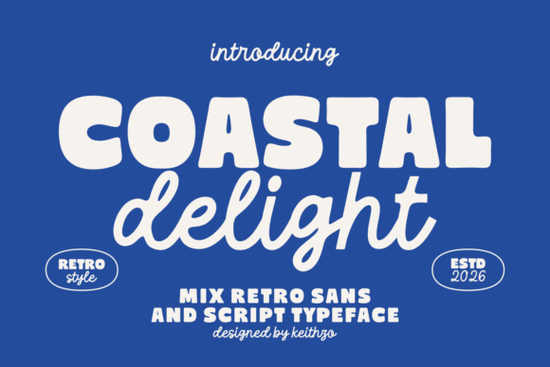
If you're looking for a font that brings a wave of nostalgic energy to your projects, Coastal Delight Font is a fantastic choice. This vibrant typeface duo combines bold, chunky letterforms with a fluid, free-spirited script, making it perfect for creators who love a retro aesthetic with a modern twist.
Why Choose Coastal Delight Font?
Coastal Delight is designed to be versatile and visually appealing. The heavy, eye-catching sans-serif paired with a graceful, hand-lettered script creates a dynamic contrast. This combination allows you to build visual hierarchy effortlessly while maintaining a cohesive, sun-drenched vibe. Whether you're working on branding, headlines, or digital designs, Coastal Delight adds character and a touch of human warmth.
Perfect for a Variety of Projects
One of the standout features of Coastal Delight is its versatility. It’s not just a font; it’s a mood. Here are some ways you can use it:
- Headlines and Titles: Make your headlines and titles stand out with the bold, chunky sans-serif.
- Branding and Logos: Add depth and personality to your branding and logos with the hand-lettered script.
- Digital Designs: Incorporate it into your digital designs for a touch of nostalgia and modern appeal.
- Print-on-Demand Products: Use it for t-shirts, mugs, and other print-on-demand products to create a unique, carefree look.
How Does Coastal Delight Compare to Other Fonts?
While there are many fonts available, Coastal Delight stands out with its unique blend of retro and modern elements. Here’s how it compares to some other popular fonts:
- Bloomsy Font: If you prefer a more floral and delicate style, Bloomsy Font might be a good alternative. However, Coastal Delight offers a bolder, more energetic feel.
- Playful Children Font: For a more whimsical and childlike design, Playful Children Font is a great option. Coastal Delight, on the other hand, provides a more mature, yet still playful, aesthetic.
- Groovy Melt Font: Groovy Melt Font has a similar retro vibe but with a more psychedelic and flowing style. Coastal Delight maintains a cleaner, more structured appearance.
- Harlow Chunky Font: Harlow Chunky Font is another bold and chunky option, but it lacks the fluid, script component that Coastal Delight offers.
- Brick Stacked Font: For a more industrial and rugged look, Brick Stacked Font is a good choice. Coastal Delight, however, provides a more approachable and sunny vibe.
Where Can I Use Coastal Delight Font?
Coastal Delight is incredibly versatile and can be used in a wide range of creative projects. Here are some specific examples:
- Website Design: Use it for headings, subheadings, and call-to-action buttons to add a touch of personality.
- Social Media Graphics: Create eye-catching graphics for Instagram, Facebook, and other social media platforms.
- Invitations and Greeting Cards: Add a personal and inviting touch to your invitations and greeting cards.
- Marketing Materials: Use it for brochures, flyers, and other marketing materials to make your message stand out.
Is Coastal Delight Easy to Use?
You can find Coastal Delight Font on Creative Fabrica. The platform offers a wide selection of high-quality fonts, and Coastal Delight is one of their top picks for designers and creative hobbyists.
Tips for Using Coastal Delight Effectively
To get the most out of Coastal Delight, here are some practical tips:
- Balance the Scripts: Use the bold sans-serif for main headings and the script for subheadings or accents to create a balanced and visually appealing layout.
- Experiment with Colors: Try different color combinations to enhance the retro and modern feel. Pastel colors and earth tones work particularly well.
- Combine with Simple Backgrounds: Use simple, clean backgrounds to let the font take center stage. This will help your text stand out and make a stronger impact.
- Test Different Sizes: Experiment with different font sizes to see what works best for your project. The bold sans-serif looks great in larger sizes, while the script can be used in smaller, more subtle ways.